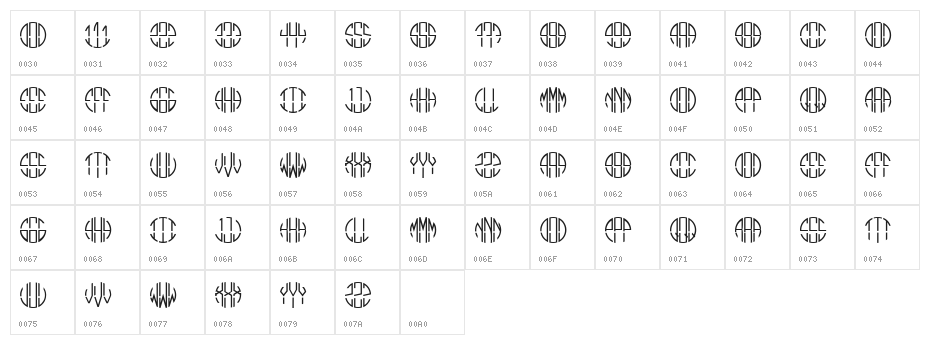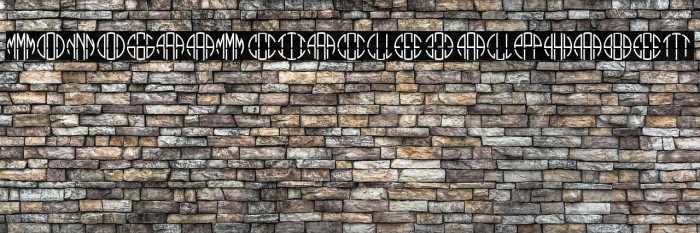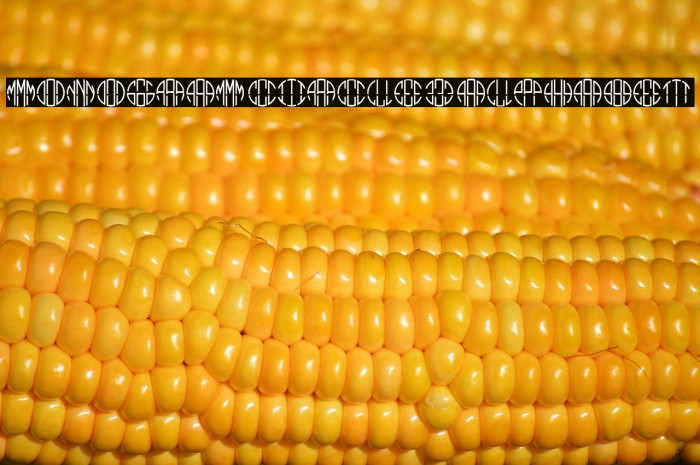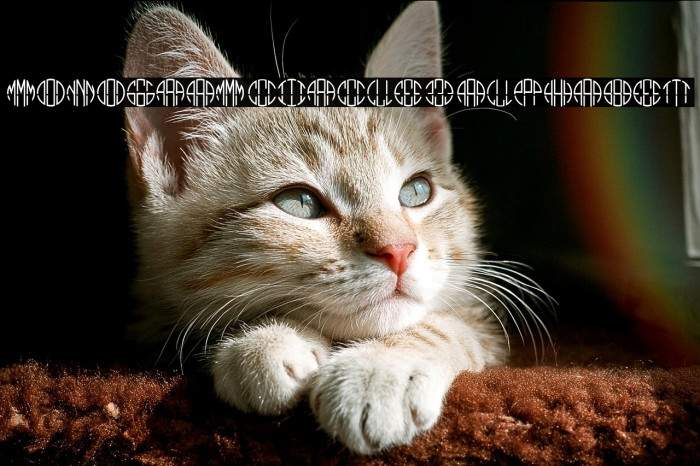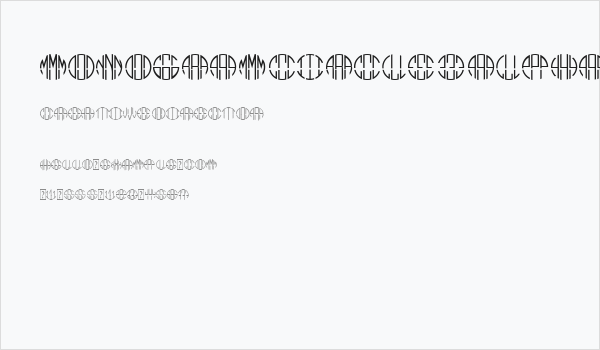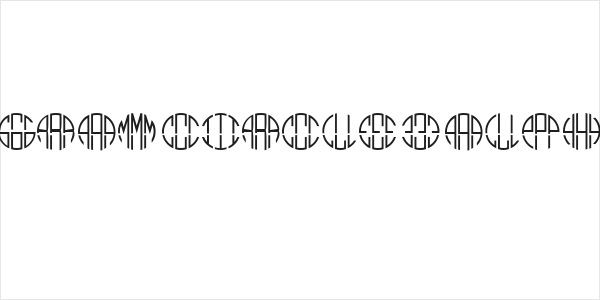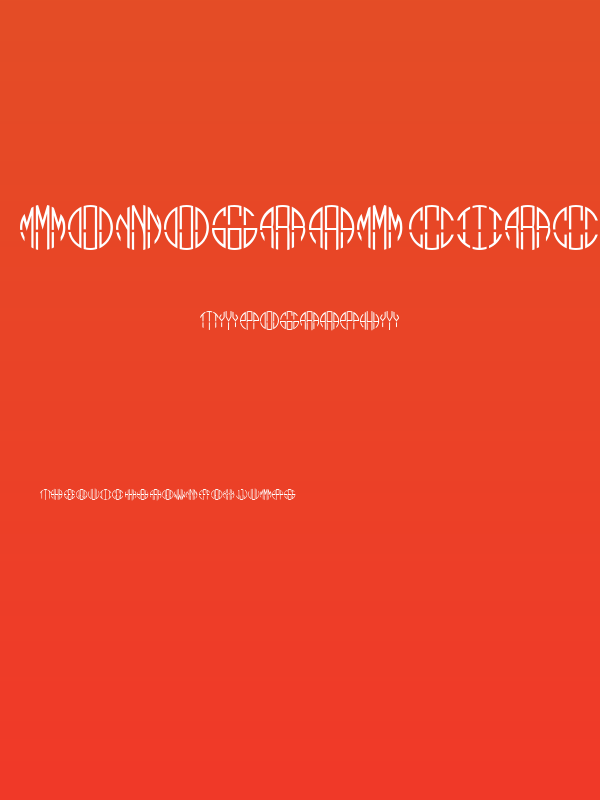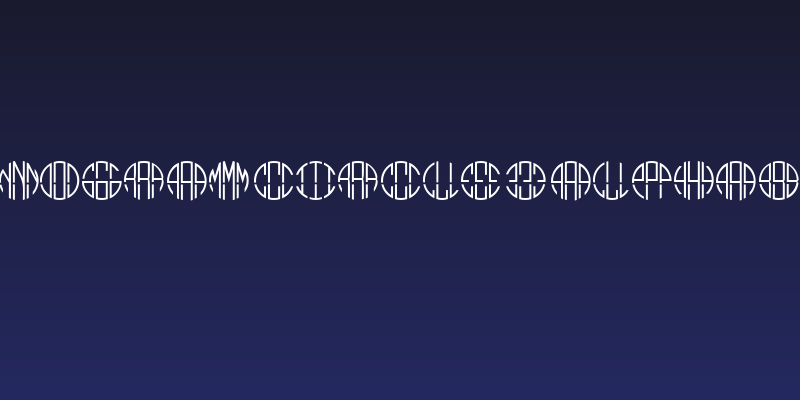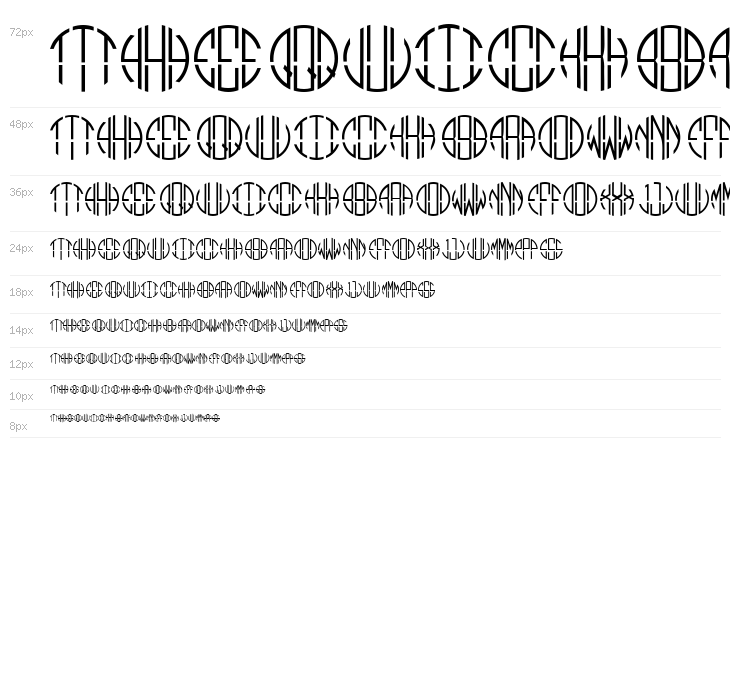
Monogram Circle 3 Alphabet Font
Monogram Circle 3 Alphabet Description
This font features a unique monogram style where each character is enclosed within a circle, creating a cohesive and decorative appearance. The design is characterized by its geometric symmetry and bold lines, giving it a modern yet timeless feel. Each letter and number is crafted to fit perfectly within the circular boundary, maintaining uniformity across the set. The font's distinct style makes it ideal for creating personalized monograms, logos, and decorative elements. Its artistic flair is suitable for projects that require a touch of elegance and sophistication.
| Use Case | Logos, Decorative elements, Monograms |
| Proposed Projects | Ideal for monograms, logos, wedding invitations, branding, and decorative design projects. |